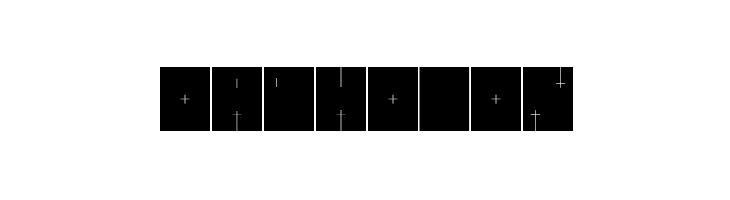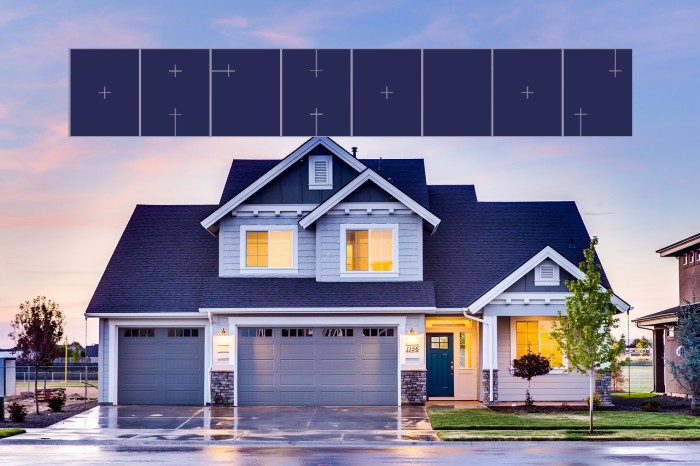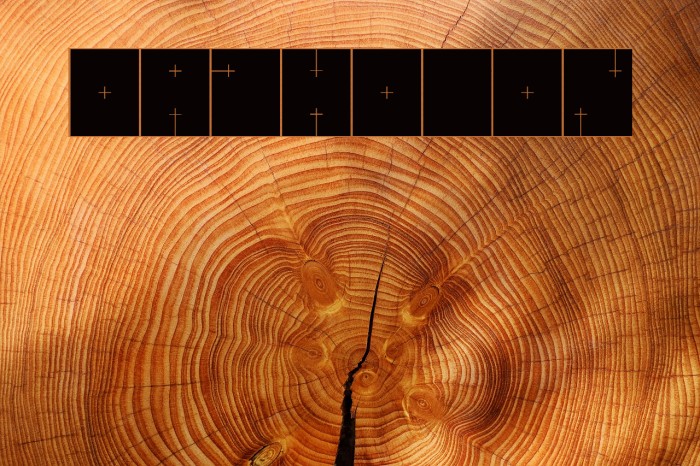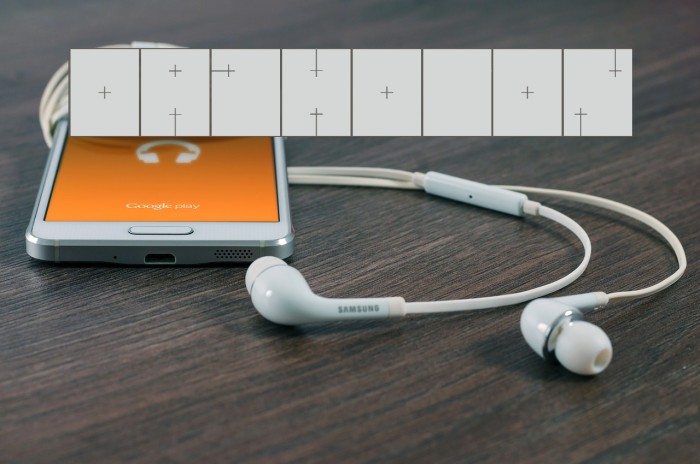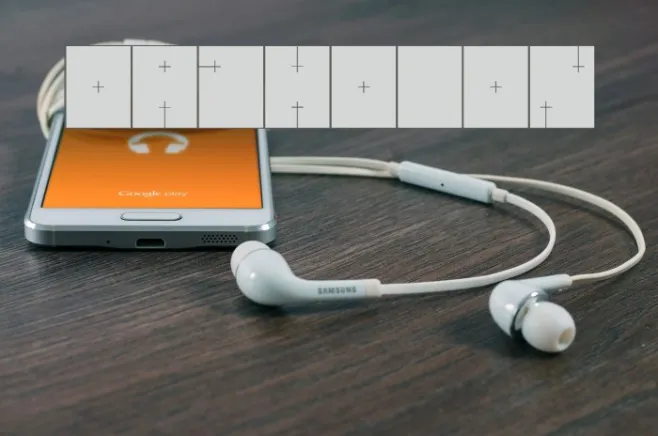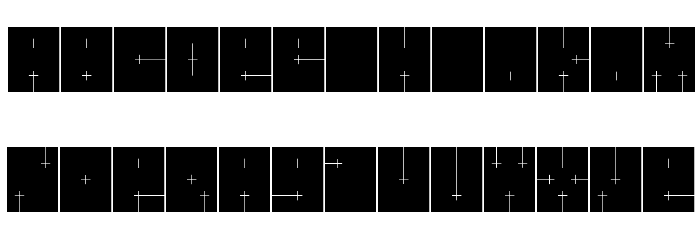
orthogon Font
orthogon Description
This font features a highly geometric and structured design, characterized by its use of straight lines and right angles. Each character is formed with precision, creating a sense of uniformity and balance. The font's simplicity and clarity make it easily readable, while its unique style adds a modern and technical feel. The consistent line thickness throughout the characters contributes to a cohesive appearance, and the spacing between characters is uniform, ensuring a clean and organized look. This font is ideal for projects that require a contemporary and minimalist aesthetic.
| Use Case | Headlines, Logos, Digital interfaces |
| Proposed Projects | Ideal for technical documents, modern branding, architectural designs, and digital interfaces. |